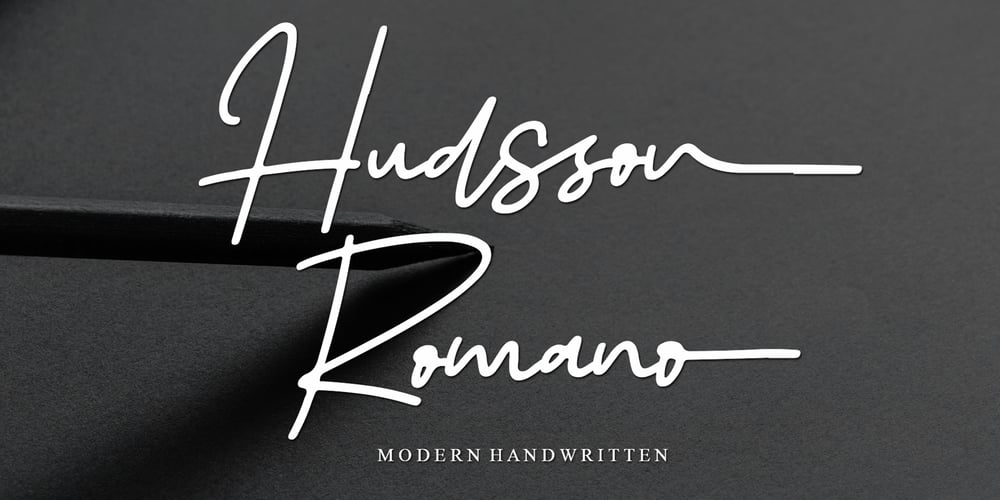
Hudsson Romano Font Family was designed by Ahmad Afandi and published by Letterafandi Studio. Hudsson Romano contains 2 styles and family package options. Hudsson Romano is a simple and quirky looking Signature handwritten font. It has a classy, elegant, and modern look that you can use for logos, branding, invitations, stationery, wedding designs, social media posts, and much more!This font is PUA encoded, which means you can access all of the glyphs and swashes with ease!